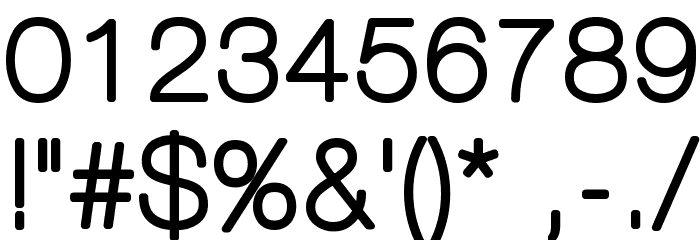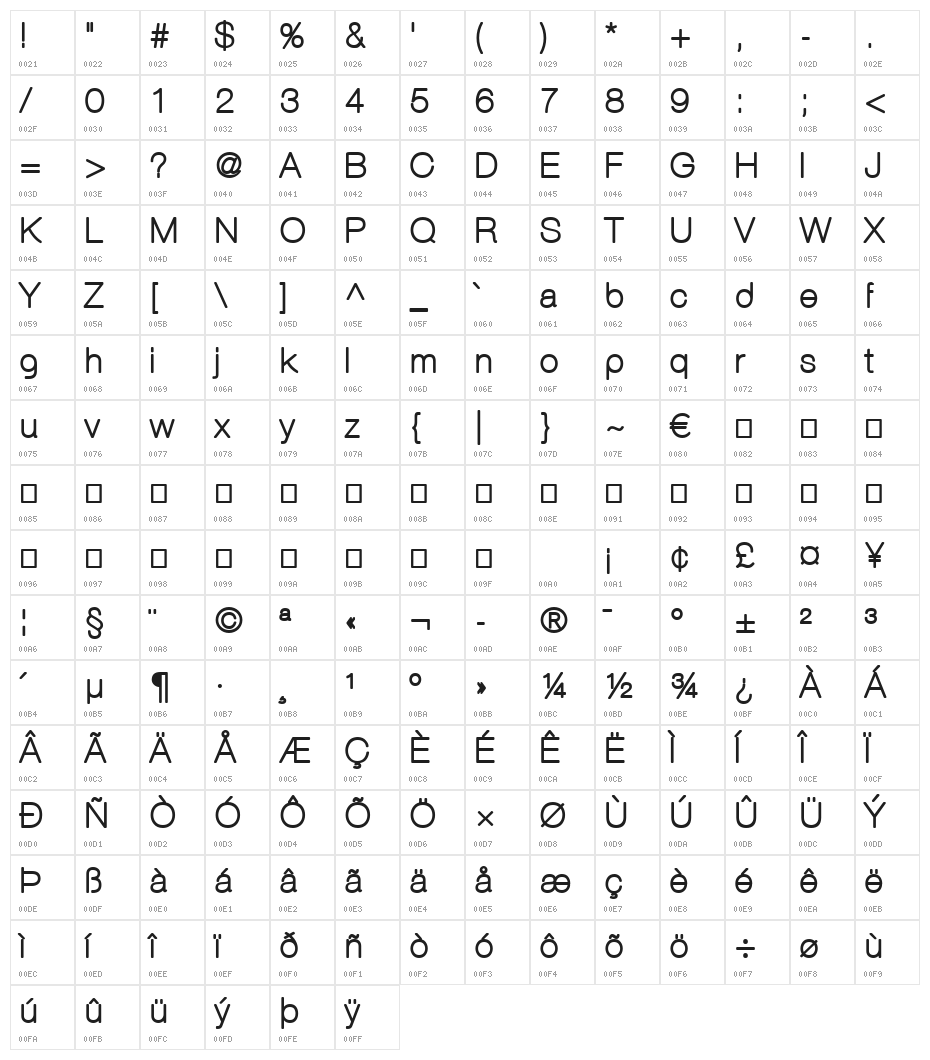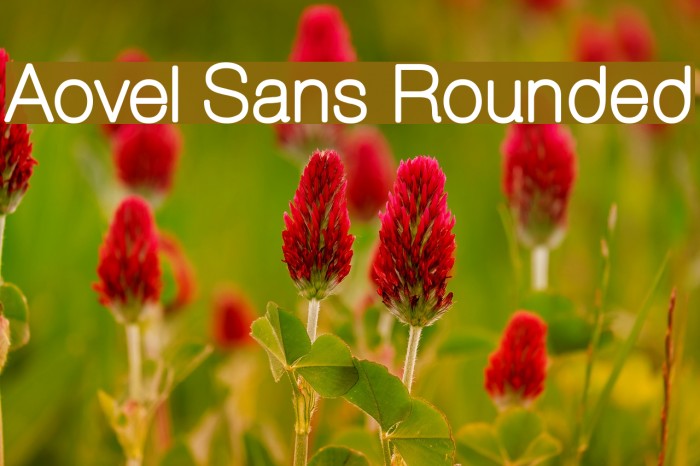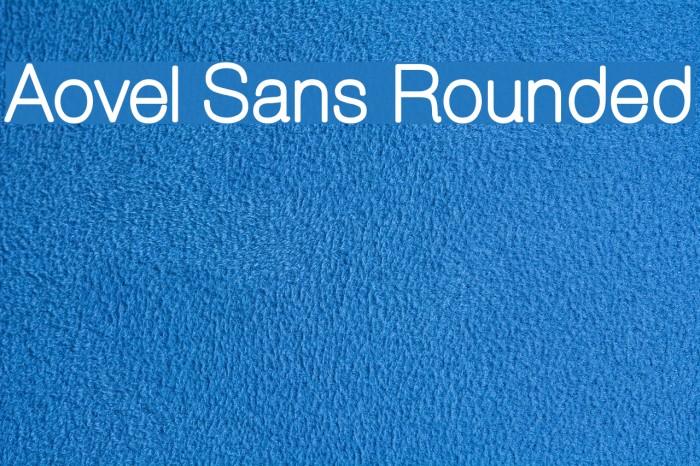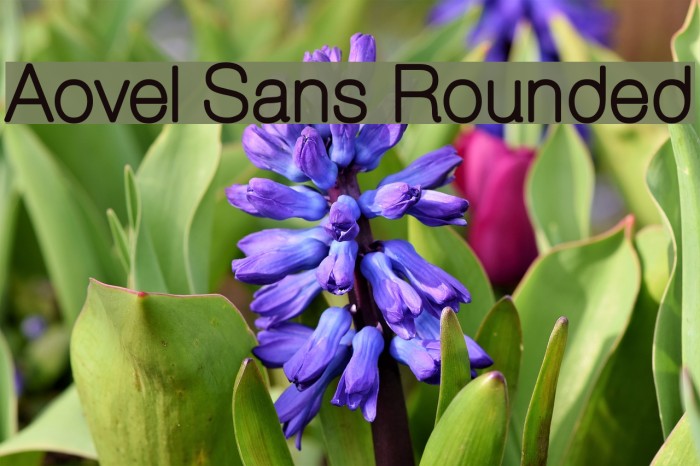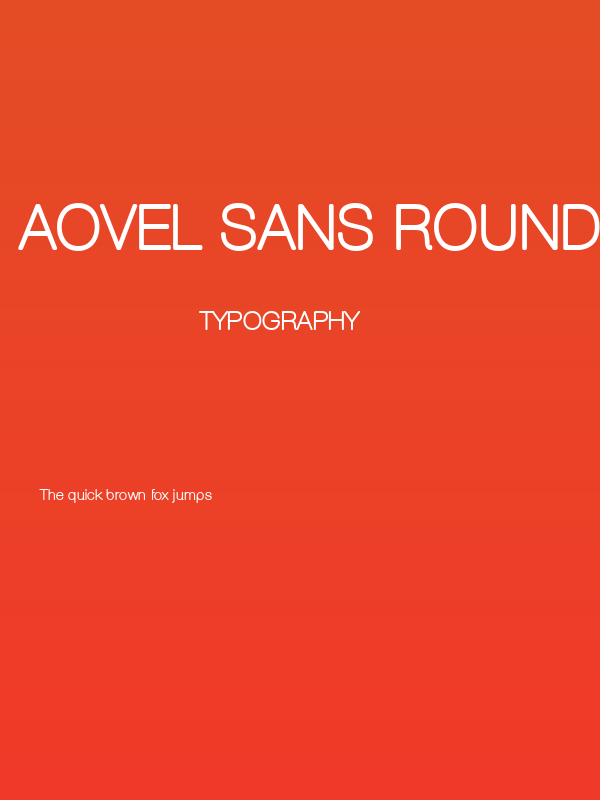
Aovel Sans Rounded Font
Aovel Sans Rounded Description
This font features a clean and modern sans-serif style with rounded edges, giving it a friendly and approachable appearance. The characters are evenly spaced, contributing to its readability. The uniform stroke width throughout the font provides a consistent and balanced look. Its simplicity and clarity make it suitable for a wide range of applications, from digital interfaces to print media. The rounded terminals soften the overall aesthetic, making it ideal for projects that require a contemporary yet inviting feel.
Use CaseHeadlines, Body text, Logos
Proposed ProjectsIdeal for branding, user interfaces, signage, and educational materials.